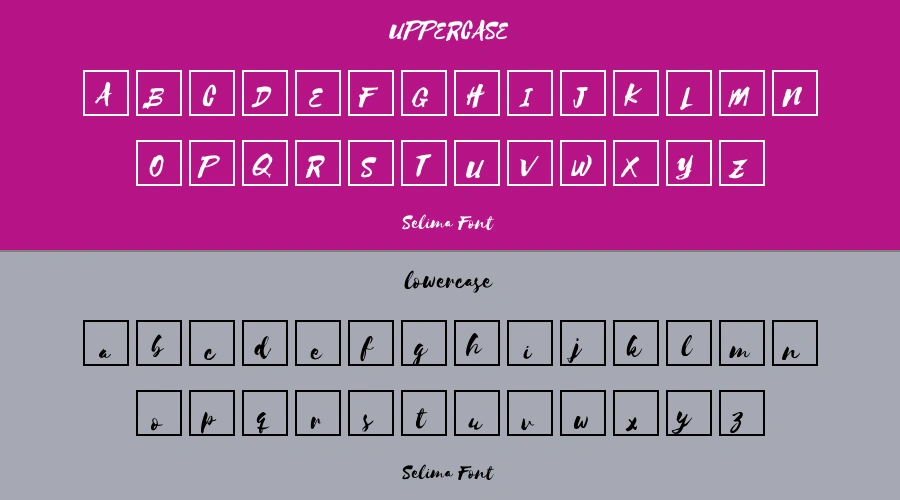
About Selima Font
Selima Font stands out for its distinctive combination of confident strokes and optical harmony. Ideal for merchandise graphics, it provides the consistency and industry recognition that professional projects demand. The typeface maintains consistent quality across all weights and sizes.
Key features include refined teardrop terminals and practical oldstyle figures, enhancing typographic expression. In packaging applications, Selima Font demonstrates exceptional memory recall. The tail length and historical reference contribute to its distinctive character and professional appeal.